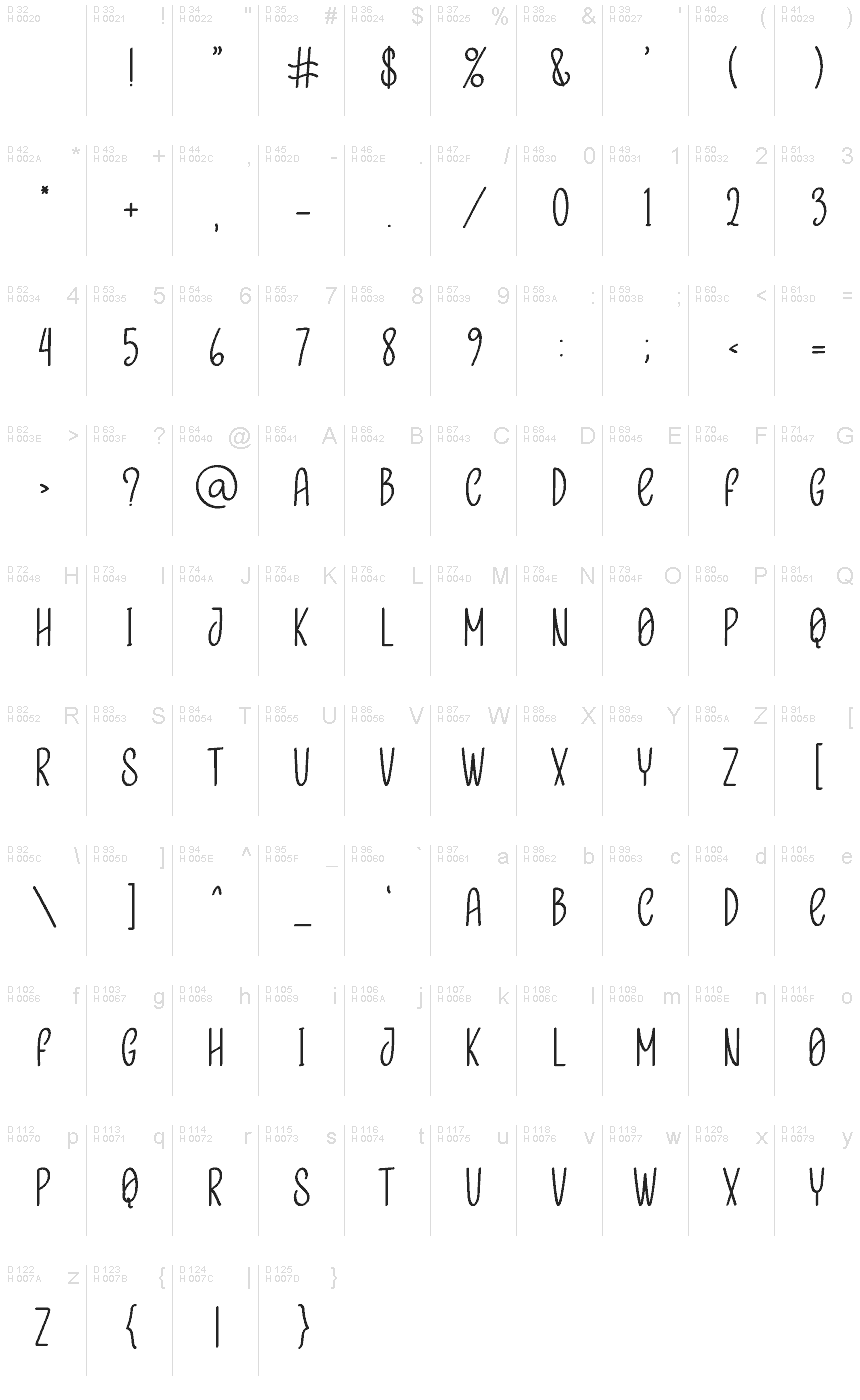
Summer Beauty
Summer Beauty font by Andi Moz captures the essence of casual, relaxed handwriting with a modern aesthetic. Its light and condensed style gives it an approachable, friendly vibe, making it the perfect choice for projects that require a personal touch.
This free handwritten font is especially suitable for invitations, greeting cards, logos, social media posts, branding materials, book covers, packaging designs, blogs, websites, and advertisements.